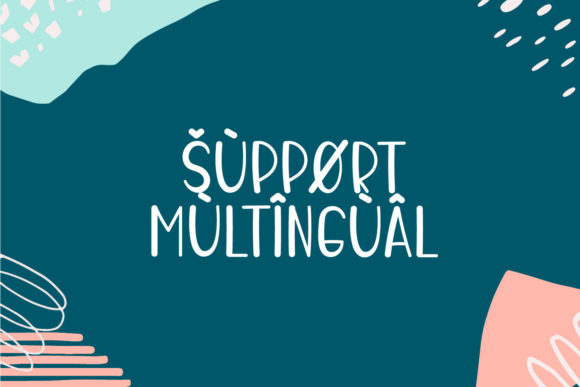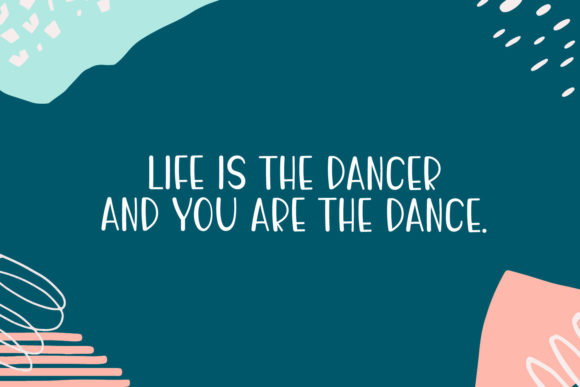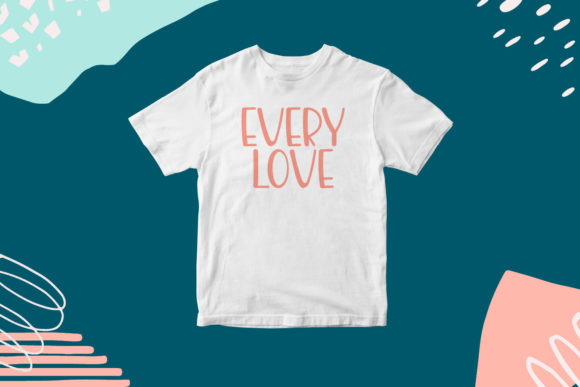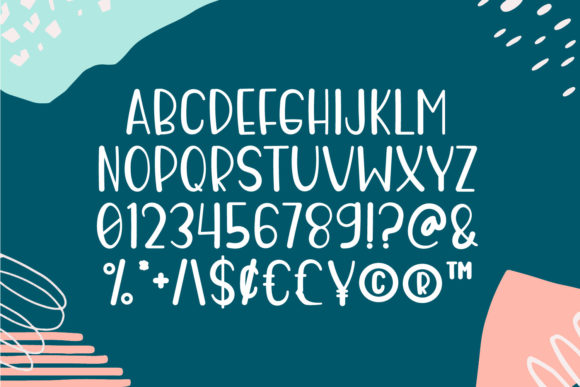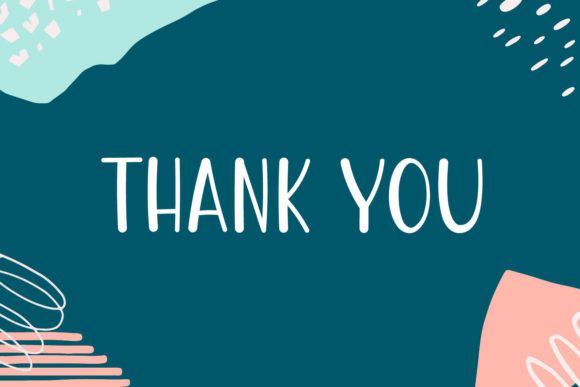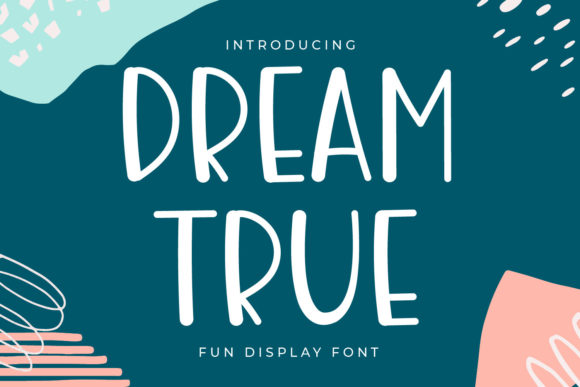
Dream True Font: The Ultimate Choice for Fun and Playful Designs
Are you a designer or crafter looking for a font that can add a touch of playfulness and fun to your creations? Look no further than the Dream True Font! This versatile display font is perfect for a wide range of projects, from cartoon-related designs to children’s games and more. In this article, we’ll take a closer look at the Dream True Font and explore its features, benefits, and uses.
What is Dream True Font?
Hello Kids is a fun, tall and adaptable display font. Whether you use it for cartoon related designs, children games or just any creation that requires a lovely touch, this font will be an amazing choice. The Dream True Font is a carefully crafted typeface that is designed to bring a sense of joy and playfulness to your designs. Its tall and slender letters make it perfect for headlines, titles, and other display text, while its adaptable nature ensures that it can be used in a variety of contexts.
Key Features of Dream True Font
The Dream True Font has several key features that make it an excellent choice for designers and crafters. Some of its notable features include:
• Fun and playful design: The Dream True Font has a unique and playful design that is sure to capture the attention of your audience.
• Tall and slender letters: The font’s tall and slender letters make it perfect for headlines, titles, and other display text.
• Adaptable: The Dream True Font is highly adaptable and can be used in a variety of contexts, from cartoon-related designs to children’s games and more.
• Easy to read: Despite its playful design, the Dream True Font is easy to read, making it perfect for use in body text as well as display text.
Benefits of Using Dream True Font
The Dream True Font offers several benefits to designers and crafters, including:
• Unique and eye-catching designs: The Dream True Font can help you create unique and eye-catching designs that stand out from the crowd.
• Versatility: The font’s adaptability ensures that it can be used in a wide range of projects, from children’s games to cartoon-related designs and more.
• High-quality design: The font is carefully crafted to ensure that it is of high quality and visually appealing.
Uses of Dream True Font
The Dream True Font is a versatile typeface that can be used in a wide range of projects, including:
• Cartoon-related designs: The font’s playful design makes it perfect for use in cartoon-related designs, such as children’s shows, movies, and games.
• Children’s games: The Dream True Font is a great choice for children’s games, as its playful design and easy-to-read letters make it perfect for young players.
• Playful posters and flyers: The font’s tall and slender letters make it perfect for use in playful posters and flyers, such as those used to advertise children’s events.
• Crafting projects: The Dream True Font is also a great choice for crafting projects, such as scrapbooking, card making, and other paper crafts.
Tips for Using Dream True Font
Here are a few tips for using the Dream True Font in your designs:
• Use it for headlines and titles: The font’s tall and slender letters make it perfect for use in headlines and titles.
• Experiment with different colors: The Dream True Font looks great in a variety of colors, so don’t be afraid to experiment and find the perfect color for your design.
• Pair it with other fonts: The Dream True Font can be paired with other fonts to create a unique and visually appealing design.
Font Name Dream True Font
Author Role Type
In conclusion, the Dream True Font is a versatile and playful typeface that is perfect for designers and crafters looking to add a touch of fun and playfulness to their creations. Its tall and slender letters, adaptable nature, and easy-to-read design make it perfect for a wide range of projects, from cartoon-related designs to children’s games and more. Whether you’re a professional designer or a crafter, the Dream True Font is sure to become a valuable addition to your font collection.